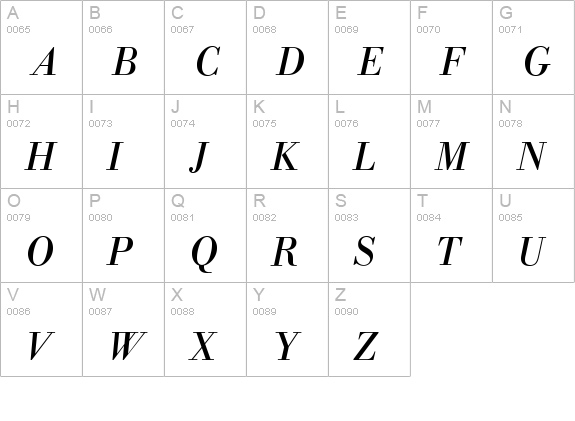
Bodoni Berthold BQ Italic Font Details
Bodoni Berthold BQ Italic is a distinctive, italic variant in the Bodoni typeface family \xE2\x80\x94 well suited to design and typography projects.
Introducing Bodoni Berthold BQ Italic - a sophisticated and elegant typeface that exudes timeless charm and modern sophistication. Its sleek and slanted design adds a touch of flair and finesse to any project, making it perfect for conveying a sense of luxury and refinement. The Bodoni Berthold BQ Italic font boasts clean lines, sharp serifs, and graceful curves that give it a distinct and stylish appearance. Whether used for headlines, invitations, or branding materials, this font is sure to make a lasting impression on any reader. What's even better is that Bodoni Berthold BQ Italic is available for free download at FontsMarket.com. So, you can easily enhance your design projects with this stunning typeface without breaking the bank. Don't miss out on the opportunity to add a touch of sophistication to your creations with this exquisite font.